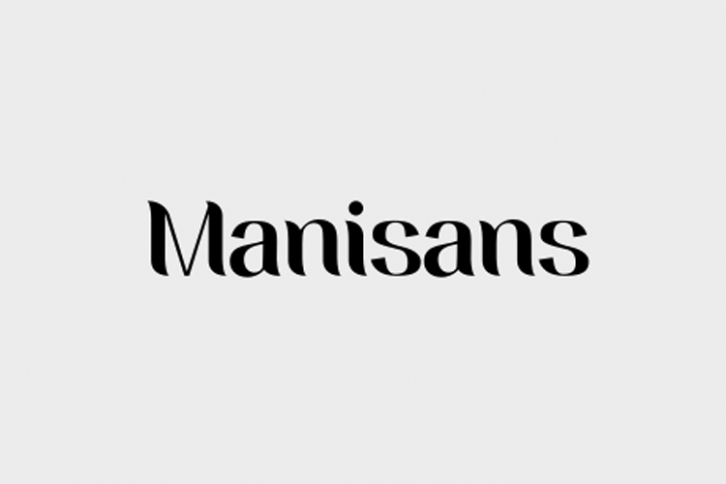
Manisans is a great font that was designed by Dieza Design. Imagine the amount of combinations you can create using this font! The archive is 15.46 MB and it was released on January 10, 2020. Manisans looks beautiful on wedding invitations, greeting cards, logos, posters, labels, t-shirt designs, logos, business cards and is perfect for use in ink or watercolor works, fashion, magazines, packaging and food menus, children's books and more!